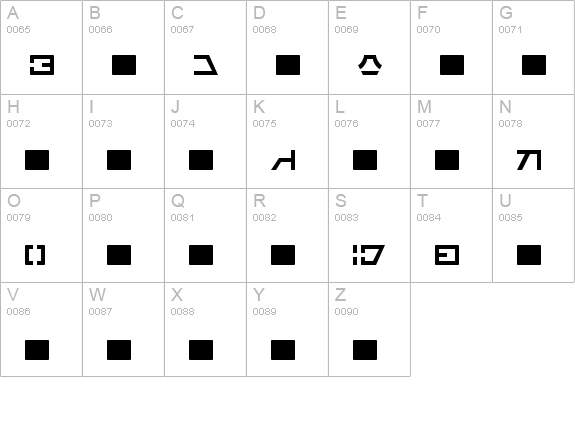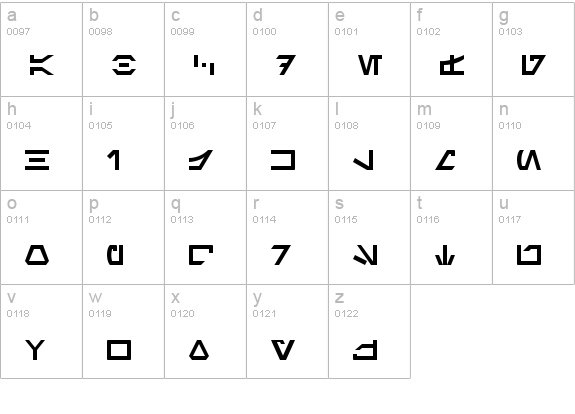
Aurebesh Font Details
The Aurebesh font is a captivating and intricate typeface inspired by the writing system used in the Star Wars universe. Featuring a unique blend of futuristic and artistic elements, Aurebesh is designed to bring a touch of sci-fi magic to your projects. This font is not only visually stunning but also highly versatile, making it perfect for a wide range of design applications. Best of all, the Aurebesh font is available for free download at FontsMarket.com, allowing you to easily incorporate this stunning typeface into your creations without any cost. Whether you're working on a sci-fi movie poster, a themed party invitation, or a futuristic branding project, Aurebesh is sure to add that extra element of intrigue and excitement. Download Aurebesh today and unleash your creativity in a galaxy far, far away!